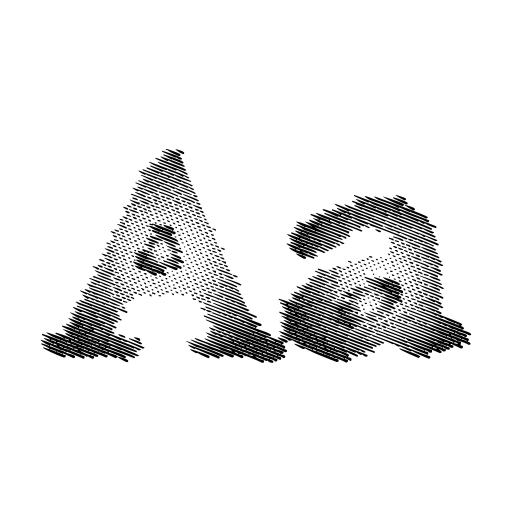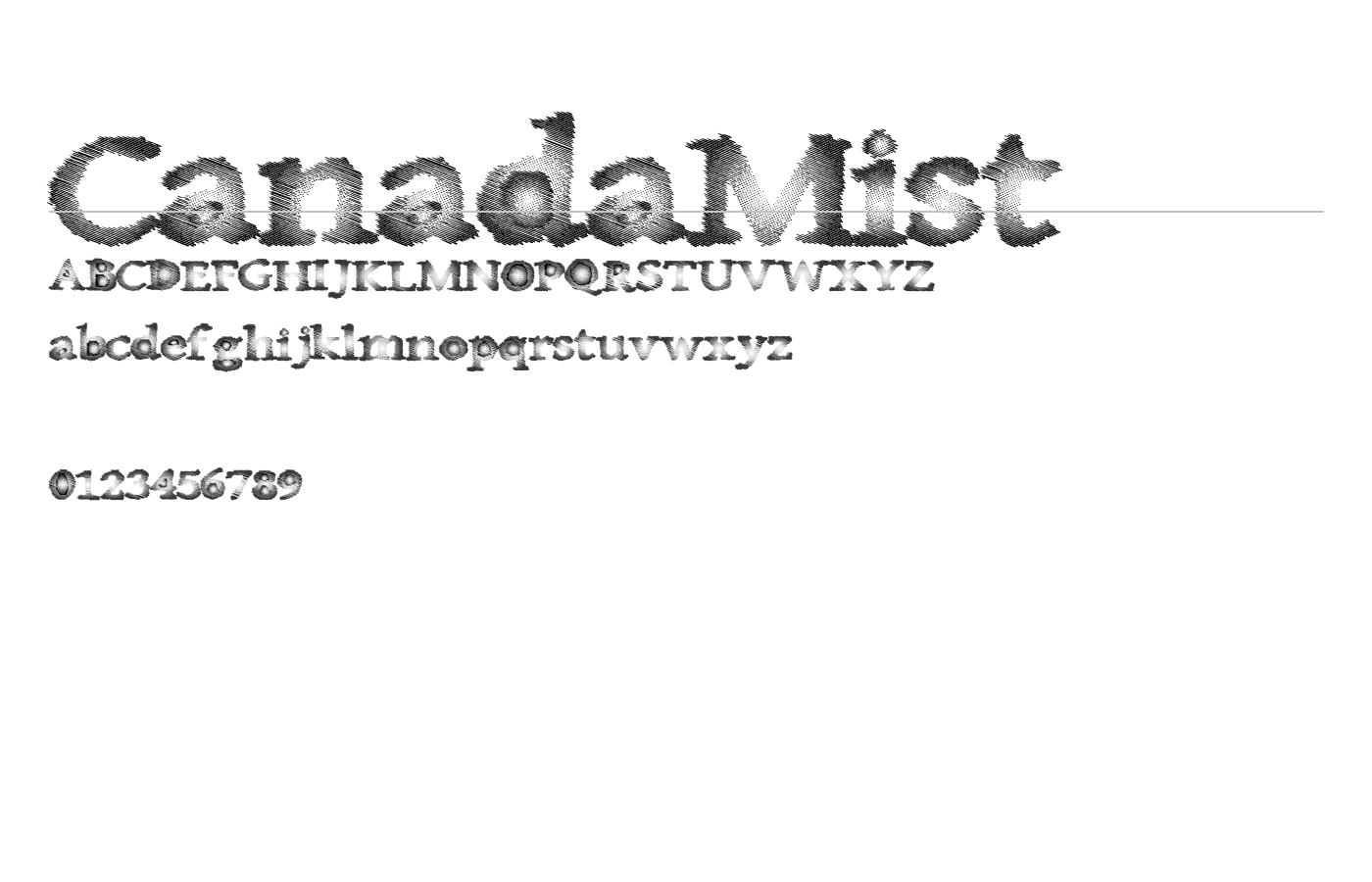
CanadaMist is a unique serif font with a textured, hand-drawn appearance that gives it a vintage and artistic feel. Its sturdy, slightly condensed letterforms and distinct serif details make it ideal for creative projects seeking an expressive and memorable look. This font works well in logos, editorial designs, and posters where a bold yet handcrafted style is desired.
CanadaMist Font
About CanadaMist Font